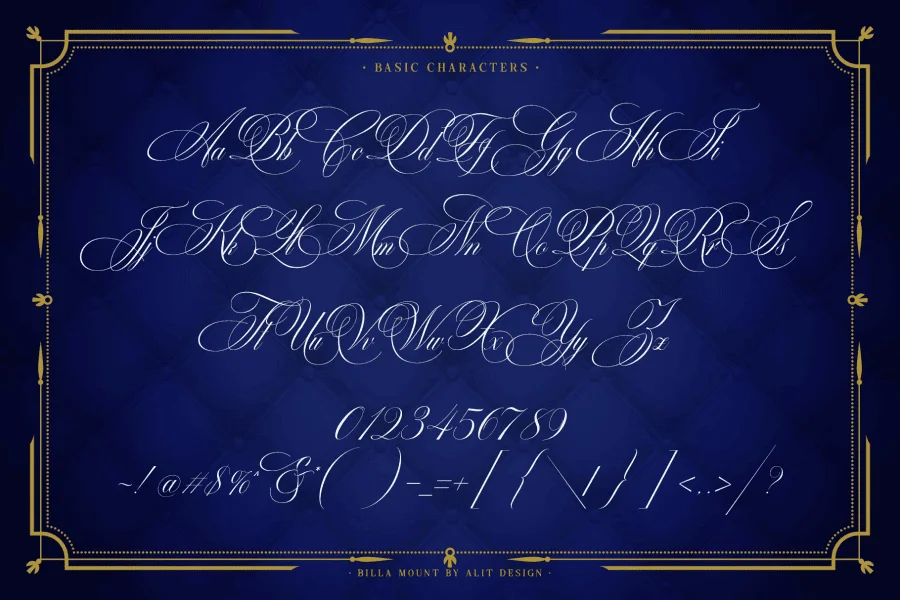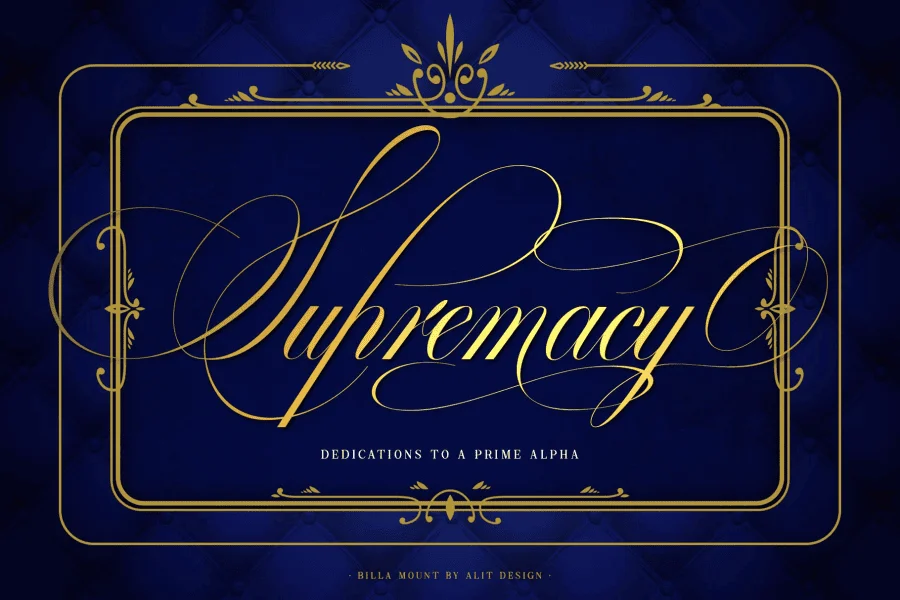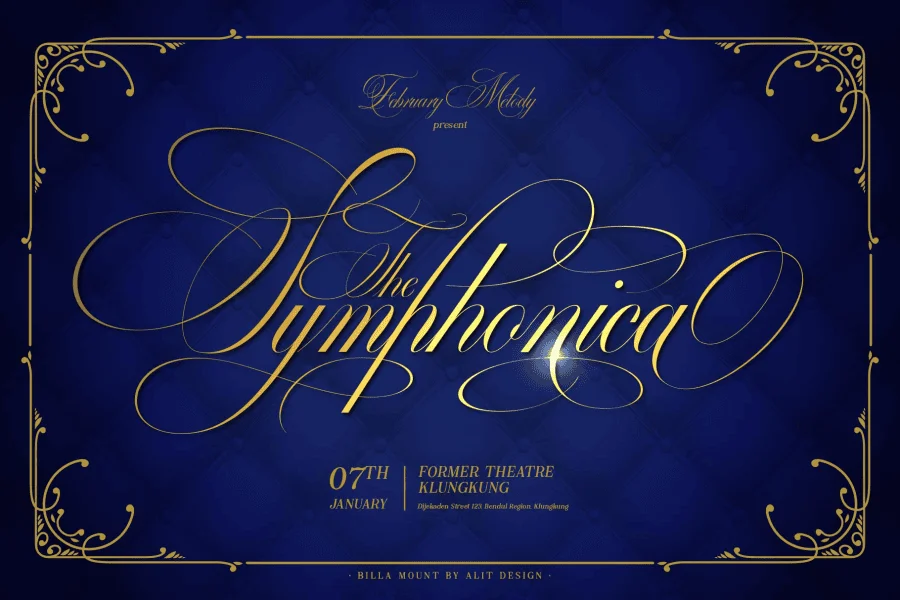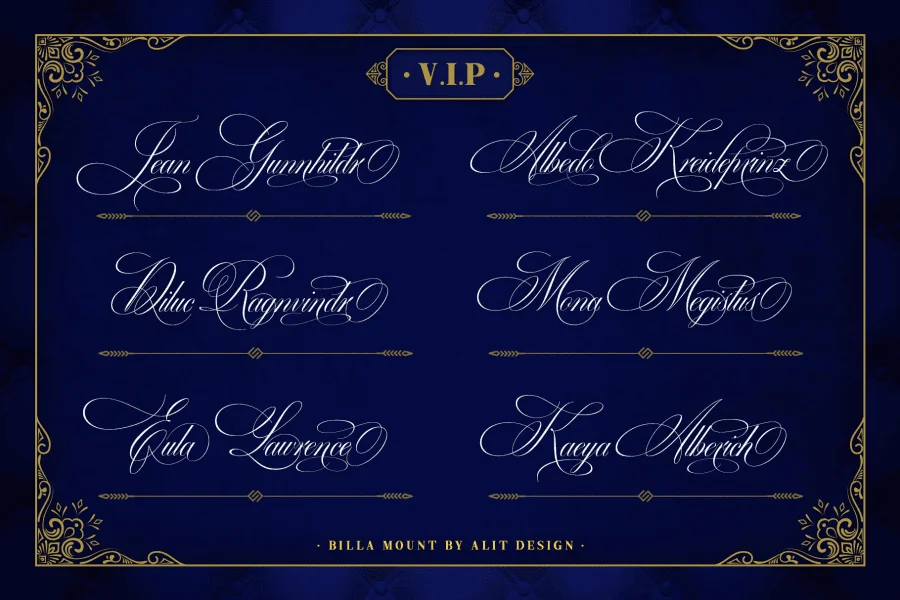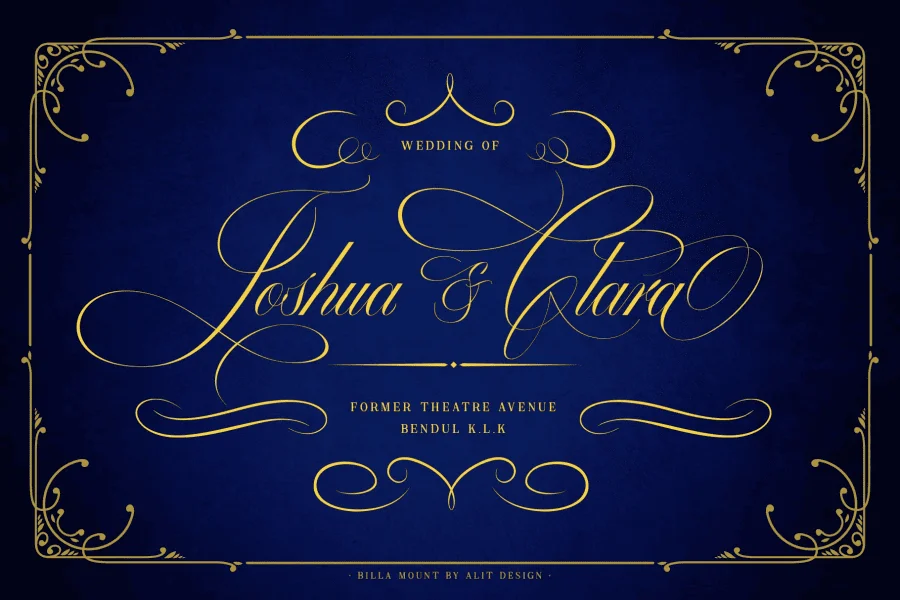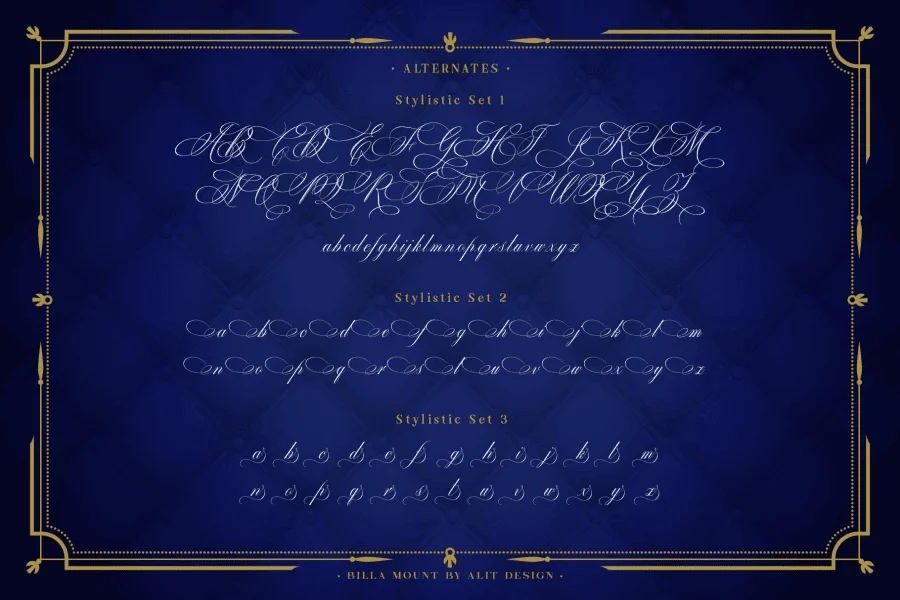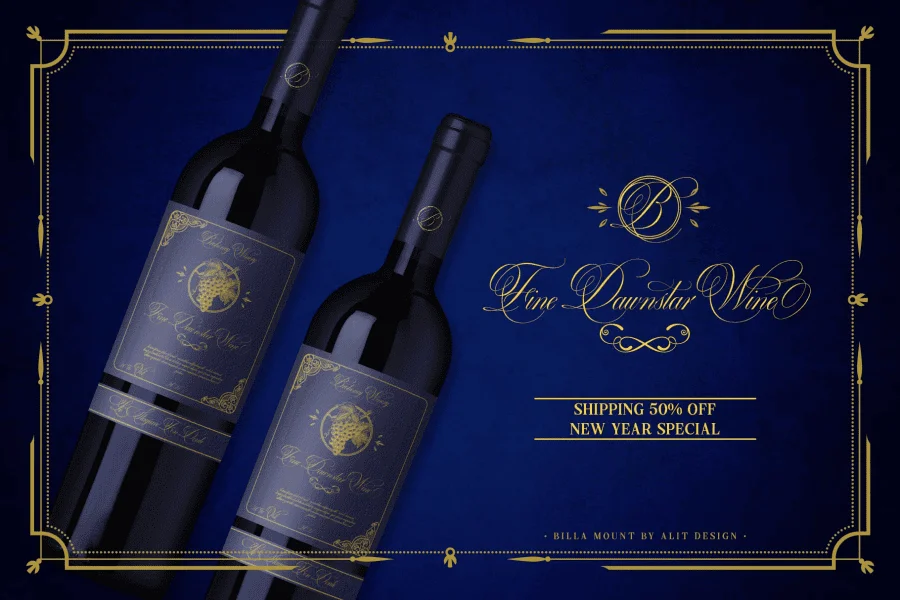
Introducing Billa Mount Luxury Script Font
✨👑The Billa Mount Luxury Script Font 👑✨ is inspired by classic letterforms that are elegant and dynamic. The Billa Mount font has a charming and deluxe Script style. Supported by many alternatives and elegant swashes, the Billa Mount font is very easy to use for classic and elegant Victorian-style designs.
Very suitable for use in making greeting card designs, Instagram posts, logo designs, Wine packaging, wedding texts, romance quotes and so on, the first is about love.